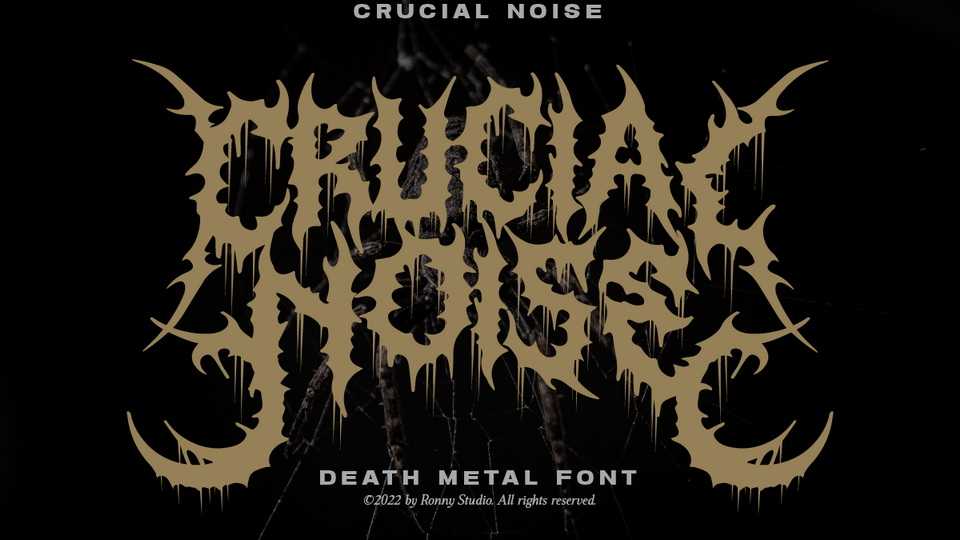
Download Crucial Noise font, a cool alternative for you to easily create a logo for your underground band or whatever. Using alternate front and ending letters brings the font to life with the classics of Death- and Blackmetal symbols.